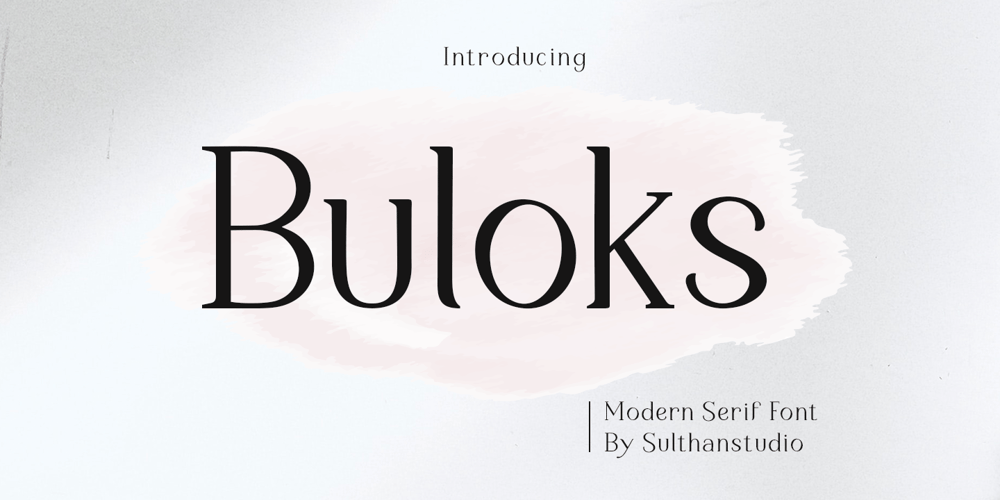
Buloks Font Family was designed by Nasrullah and published by Sulthan Studio. Buloks contains 2 styles and family package options. Buloks is a simple and attractive modern serif font. It has two regular and medium styles, making it perfect for any work you are working on such as logos, magazines, social media, and more. This font is PUA encoded which means you can access all glyphs and swashes easily!Buloks is built with OpenType features and includes ligatures, alternates, numbers, punctuation, and also supports other languages.